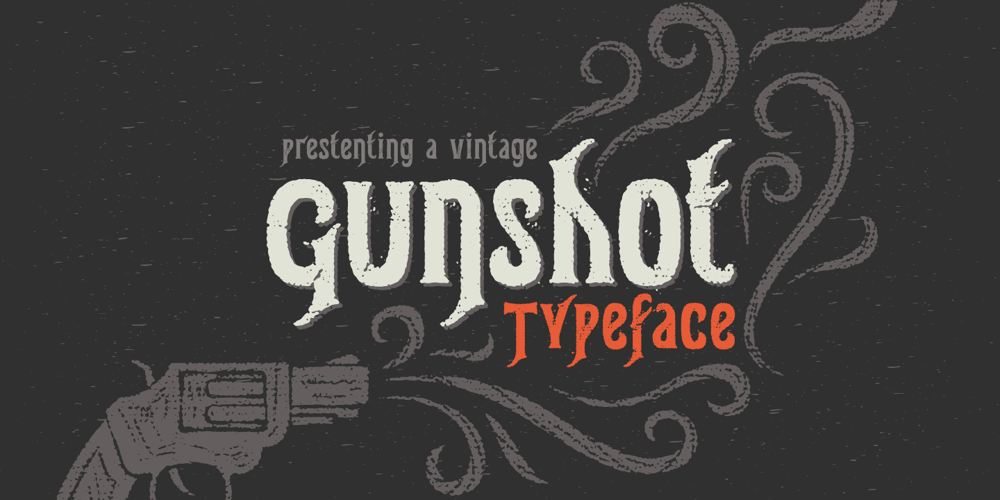
Gunshot Font Family was designed by Gleb Guralnyk and published by Gleb Guralnyk. Gunshot contains 3 styles and family package options. Hello! Introducing a vintage typeface named “Gunshot”. It has two style variations with clean and rough characters.